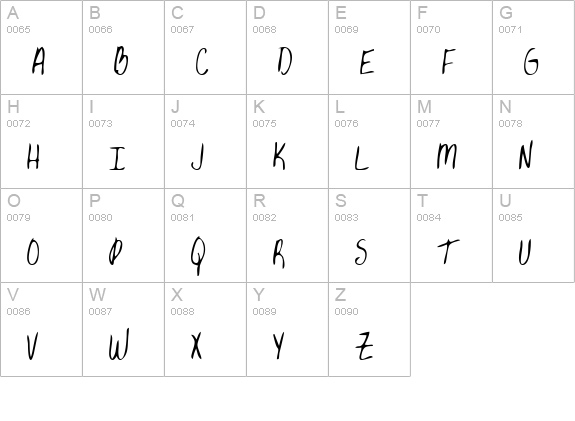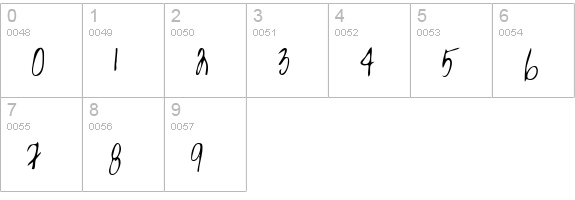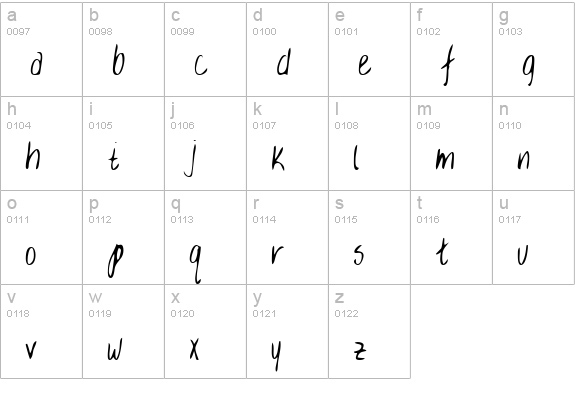
BrendasHand Regular Font Details
BrendasHand Regular is the standard, neutral variant in the BrendasHand typeface family \xE2\x80\x94 well suited to general body text, paragraphs, and standard typographic work.
BrendasHand Regular font is a beautifully crafted typeface that exudes elegance and sophistication. With its delicate curves and graceful flourishes, this font is perfect for adding a touch of charm to any design project. Whether you're creating invitations, greeting cards, or branding materials, BrendasHand Regular font will elevate your work to new heights. The best part? BrendasHand Regular font is available for free download at FontsMarket.com. You can easily access this stunning font and use it in your projects without any cost. Don't miss out on the opportunity to enhance your designs with this exquisite typeface. Download BrendasHand Regular font today and let your creativity shine!